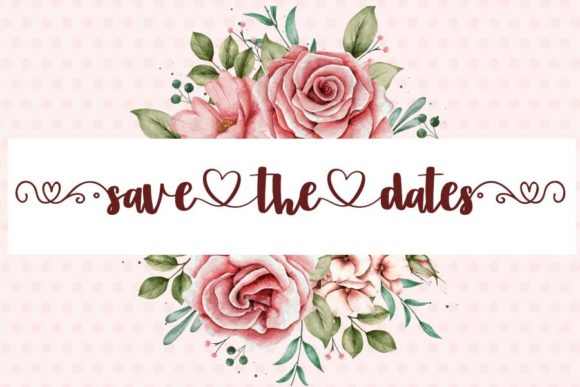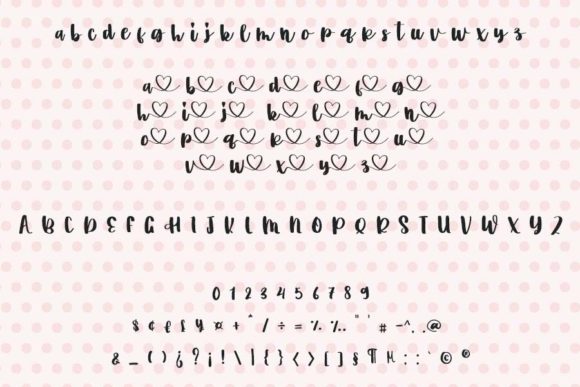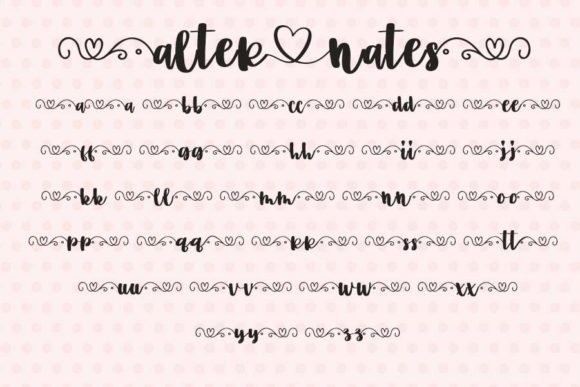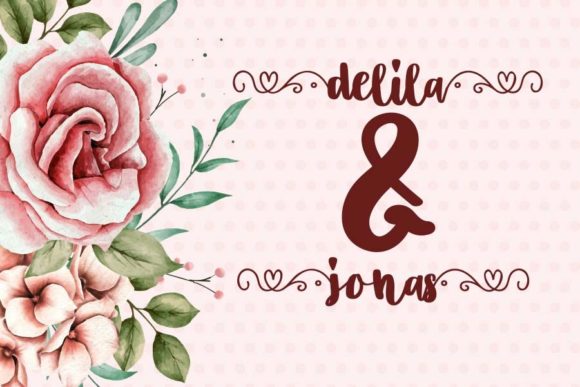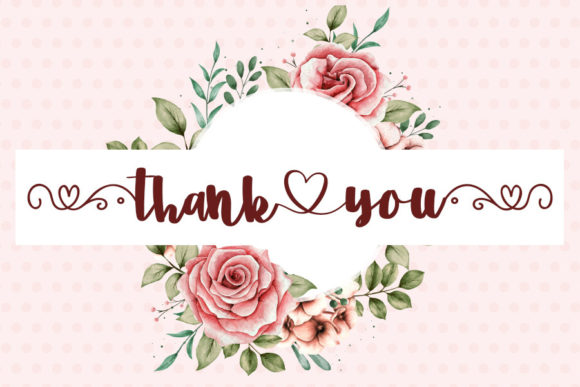
Love You Font
About Love You Font
Love You is a dazzling and romantic handwritten font with a unique feel and a stunning impact. It will add a luxury spark to any design project that you wish to create! This font is PUA encoded which means you can access all of the amazing glyphs and ligatures with ease!